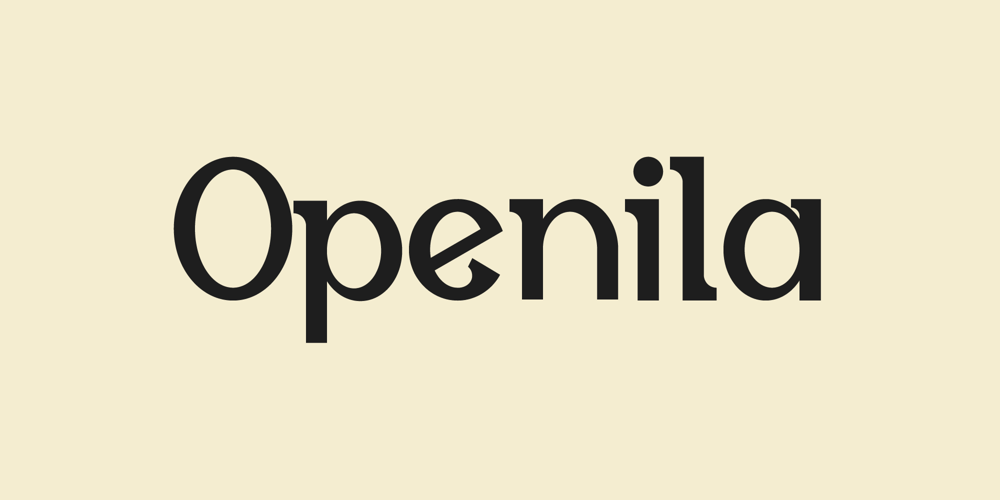
Openila Font Family was designed by Iwan Alwan and published by Artiveko. Openila contains 2 styles and family package options. Openila is not just a typeface; it’s a visual journey through the realms of typography. Bold and distinguished, it proudly wears the mantle of a Slab Serif Font, with each character crafted to perfection. Its uniqueness lies not only in its stout serifs but also in the dance of variation between uppercase and lowercase glyphs, a symphony of form and function.Venture into the world of Openila, and you’ll find yourself enchanted by its multilingual support, embracing a multitude of languages with ease and grace. But that’s not all – it whispers tales of ligatures, where letters intertwine like old friends, creating seamless transitions and adding a touch of elegance to every word.Openila isn’t just a font; it’s an experience, inviting you to explore the boundaries of expression with every stroke and curve. Whether in print or on screen, it leaves an indelible mark, a testament to the artistry and craftsmanship behind its creation. Welcome to the world of Openila, where every letter tells a story, and every word is a work of art.